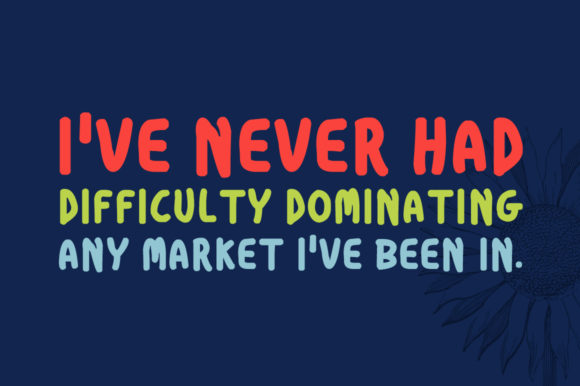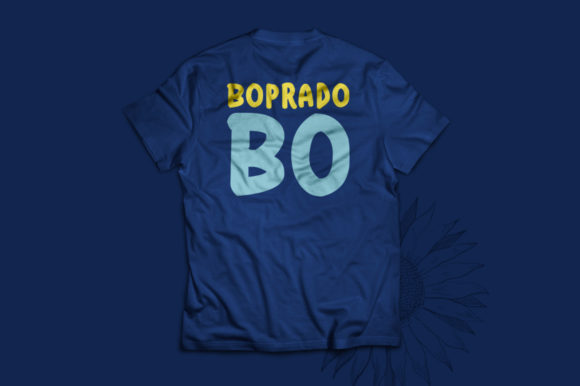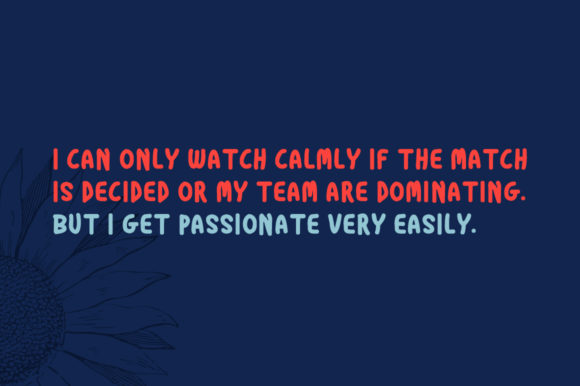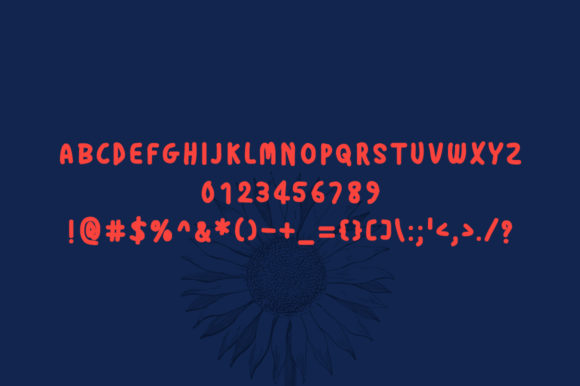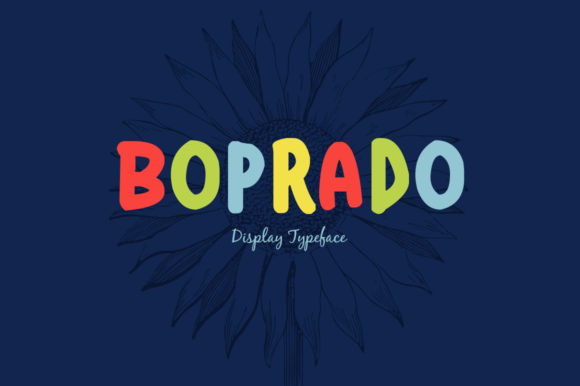
The Boprado Font: A Fun and Playful Display Font for Creative Projects
I’ll never forget the moment I stumbled upon the perfect font for a project I was working on. I had been searching for what felt like hours, scrolling through font after font, but nothing seemed quite right. That was until I discovered the Boprado font. With its fun and playful style, it instantly captured the tone I was aiming for. In this article, I’ll share my experience with the Boprado font, its features, and how to make the most of it in your creative projects.
An Honest Review of Boprado Font
The Boprado font has quickly become one of my go-to fonts for display purposes. Here’s what I love about it:
• ✨ Unique and playful style: The Boprado font has a distinctive look that’s perfect for making a statement in stationery, logos, t-shirts, and more.
• ✅ Highly versatile: Whether you’re working on print designs, website headers, photo frames, flyers, music covers, or posters, the Boprado font fits right in.
• ✅ Easy to read: Despite its playful nature, the Boprado font remains clear and legible, even at smaller sizes.
• ⚠️ Limited use in body text: Due to its display nature, the Boprado font might not be the best choice for longer blocks of text.
• 🤔 Requires careful kerning: As with any font, you may need to adjust the kerning to ensure the best results, especially when using it for titles or headings.
The Boprado font was designed with the intention of creating a fun, yet professional display font. The designer aimed to craft a font that would be versatile enough for various creative projects while maintaining a unique and playful style. The result is a font that’s both eye-catching and easy to read.
Font Name Boprado Font
Author Spanking Fonts
Q: What type of projects is the Boprado font best suited for?
A: The Boprado font is perfect for display purposes, including stationery, logos, t-shirts, papers, print designs, website headers, photo frames, flyers, music covers, posters, and more.
Q: Does the Boprado font support OpenType features?
A: Yes, the Boprado font supports OpenType features, including stylistic alternates and glyphs. This allows for greater flexibility and creativity in your designs.
Q: Is the Boprado font easy to read?
A: Despite its playful nature, the Boprado font is designed to be clear and legible, making it suitable for titles and headings.